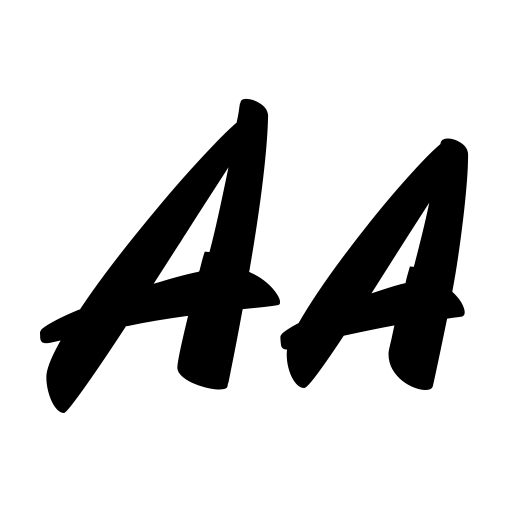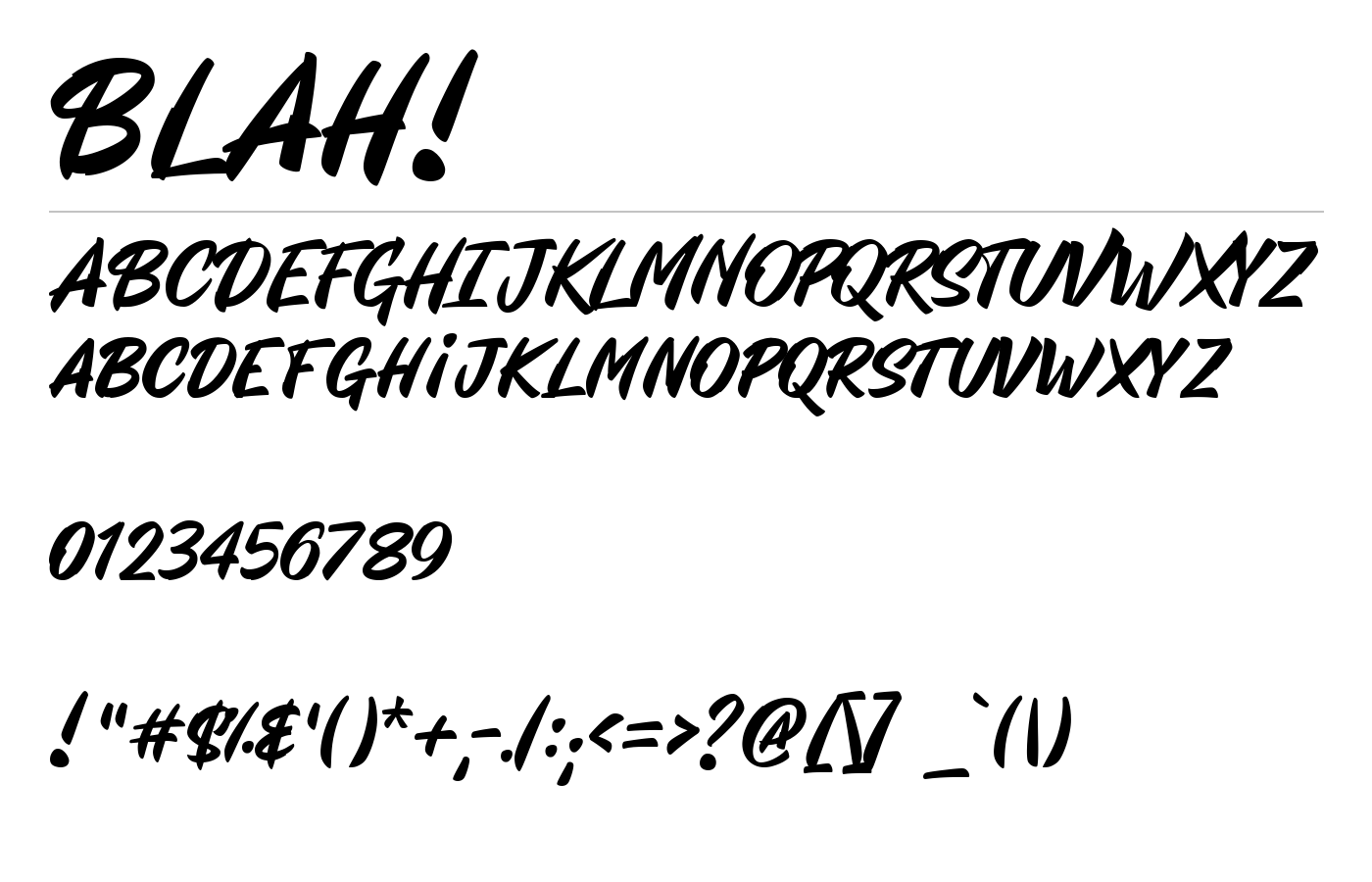
BLAH! Font is a bold, energetic script typeface with a hand-painted feel, featuring dynamic strokes and a slightly condensed width that adds personality and movement. Its lively, informal style makes it perfect for creative projects, casual branding, and eye-catching headlines where a fun and expressive tone is desired. This font works especially well in designs that aim to convey friendliness and spontaneity.
BLAH! Font
About BLAH! Font